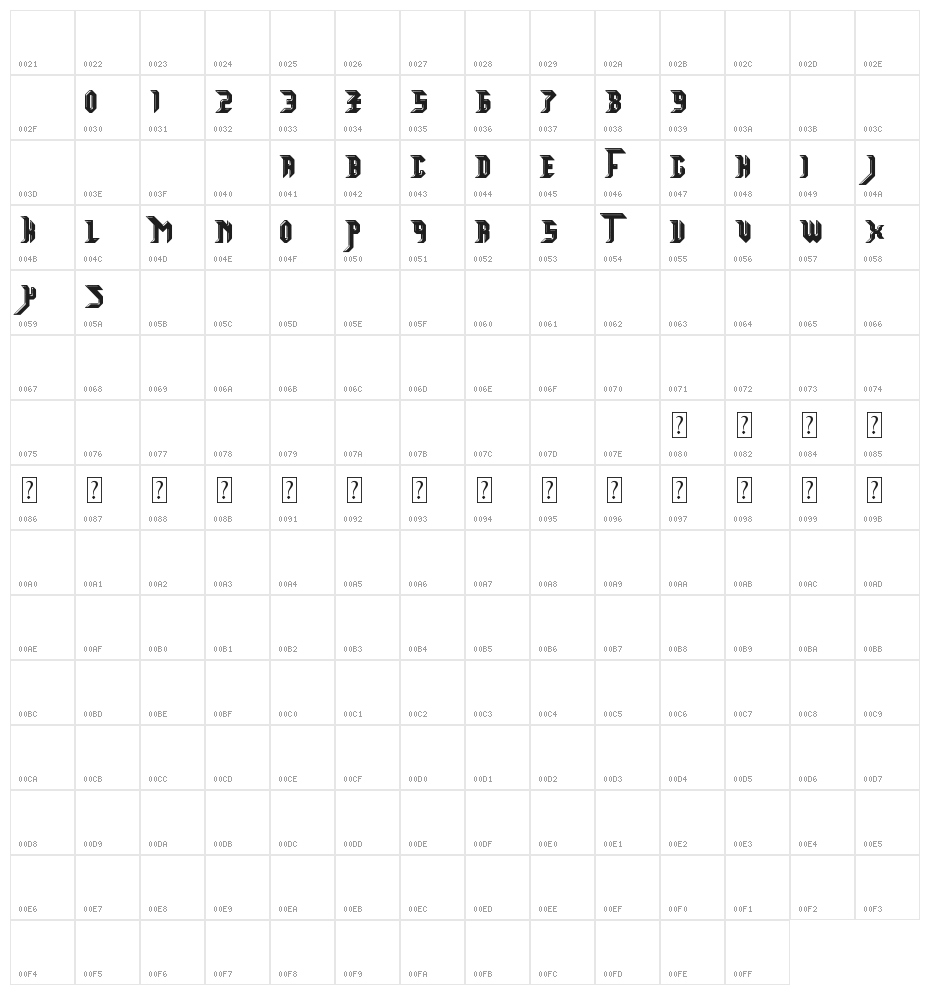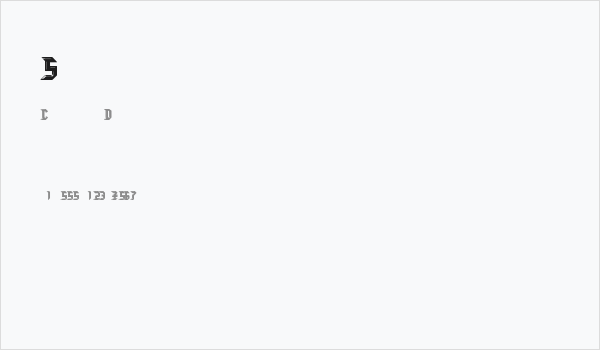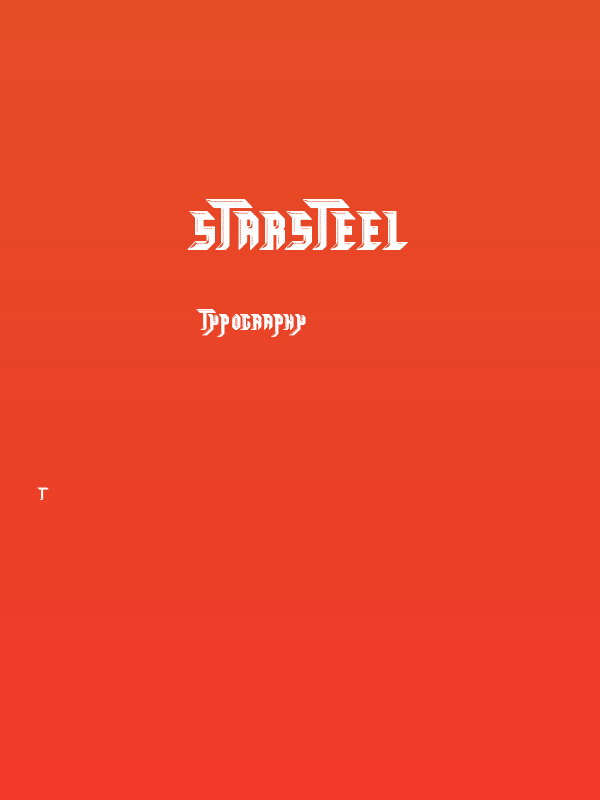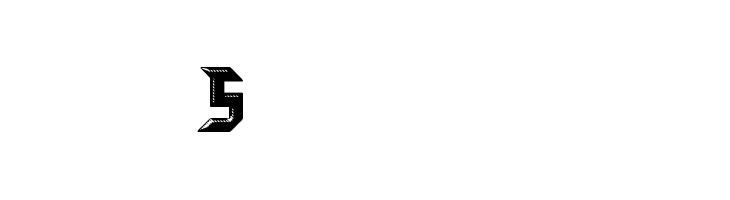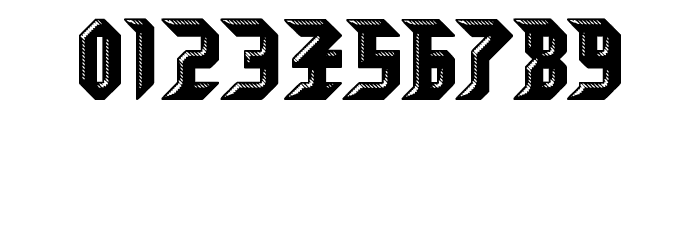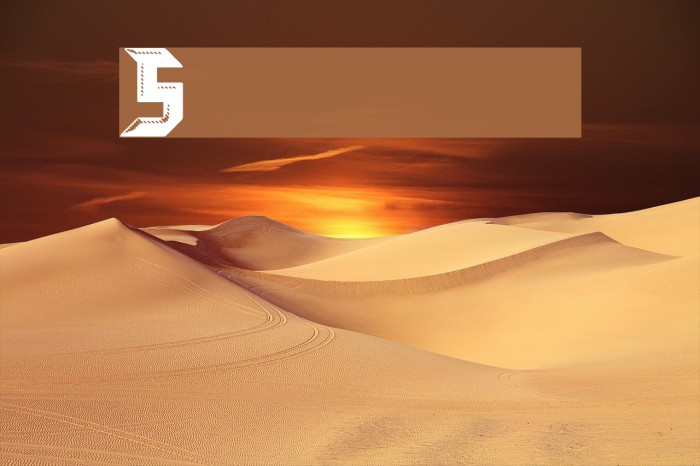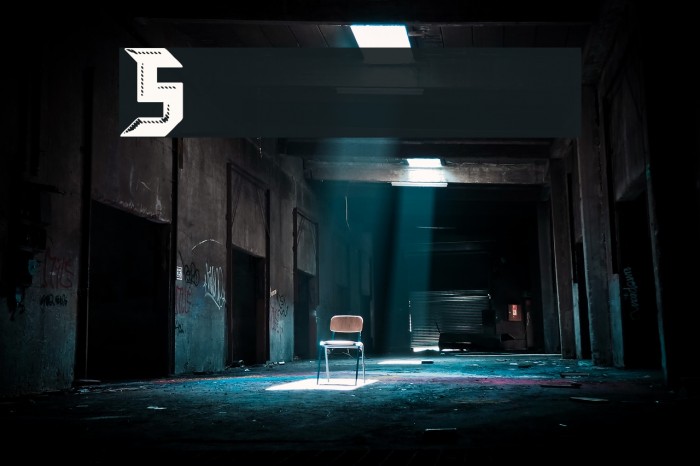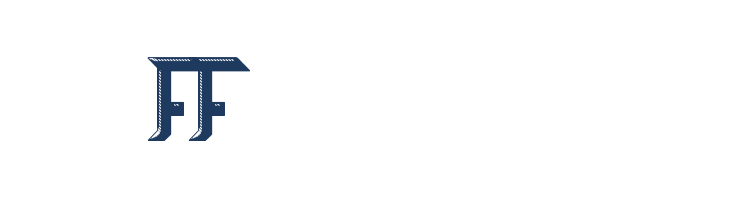
Starsteel Font
This font features a bold, angular design with a futuristic and industrial aesthetic. The characters are heavily stylized with sharp edges and a three-dimensional effect, giving them a dynamic and impactful appearance. The use of diagonal lines and shading adds depth and a sense of motion. The uppercase letters are particularly striking, with unique forms that emphasize the font's modern and edgy style. The numerals maintain the same bold and angular characteristics, ensuring consistency across the character set.
| Overall Style | Futuristic, Industrial |
| Proposed Projects | Ideal for use in video game titles, movie posters, and branding for tech or industrial companies. |